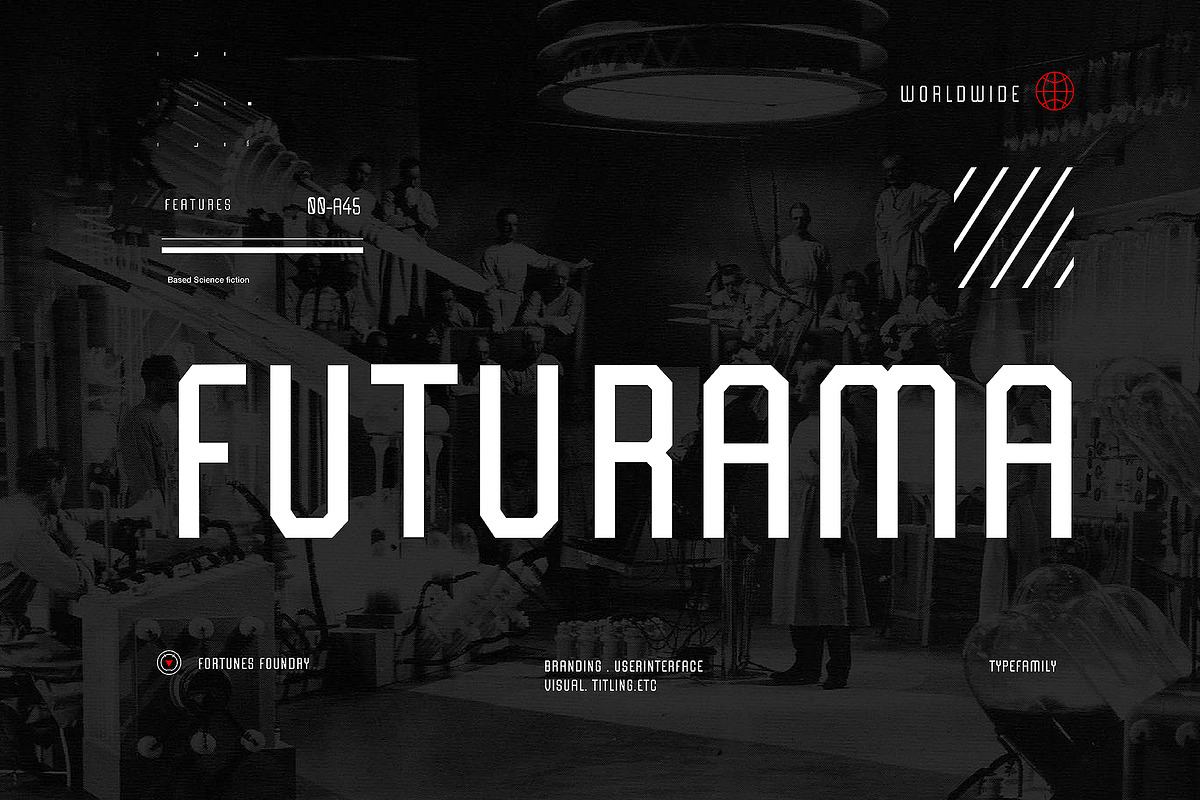
Futurama Modern Titling Fonts Free Download
The Futurama Modern Titling Fonts Free Download is a sleek and contemporary typeface designed for bold headlines and striking titles. Perfect for creating futuristic logos, branding, posters, and digital content, this font adds a modern and sophisticated touch to your designs. Please note, for commercial use, a license must be purchased. You can download it for free for testing purposes.
With its sharp lines and clean design, the Futurama Modern Titling Fonts Free Download is ideal for projects that need to make a strong impact. Whether you're working on tech-related branding, digital advertising, or creative promotional materials, this font brings a sleek, modern aesthetic to your work.